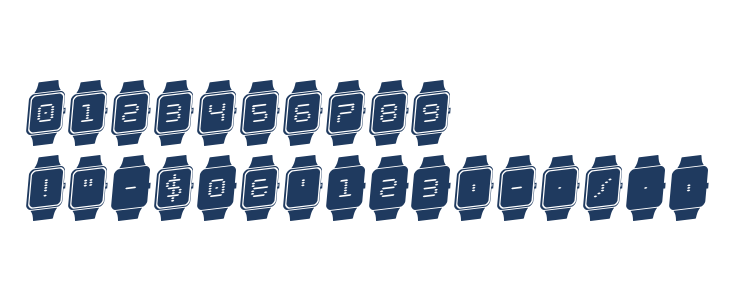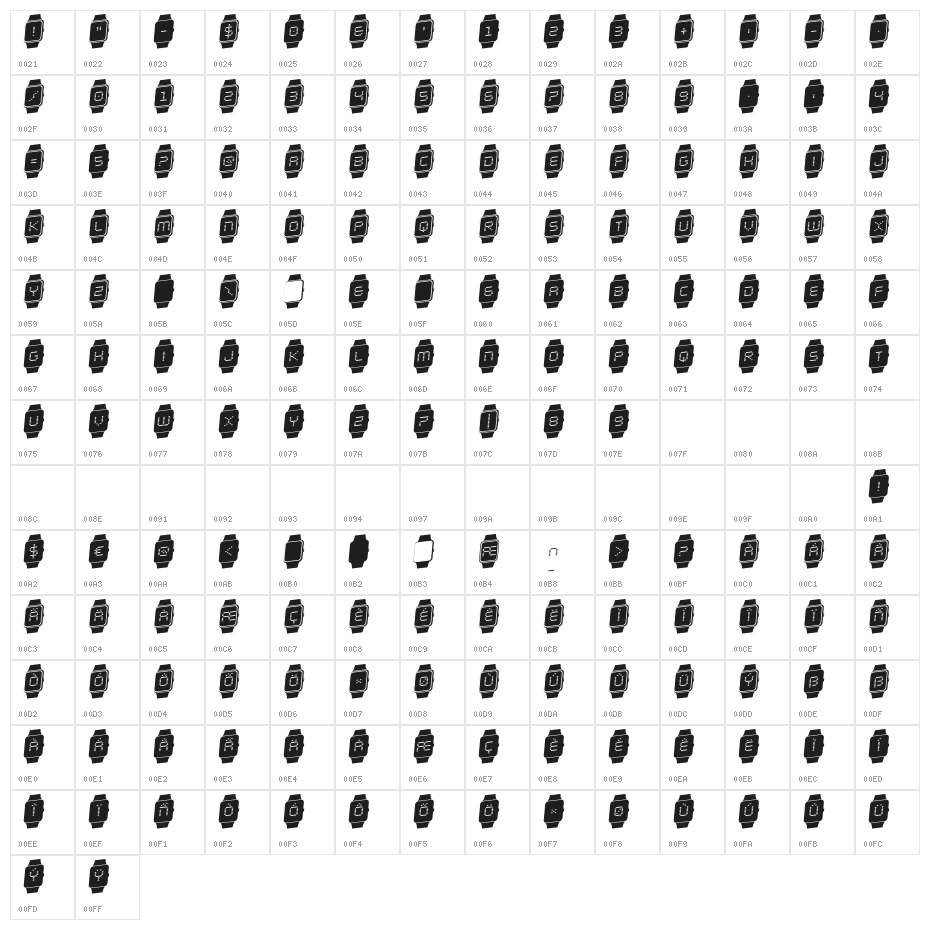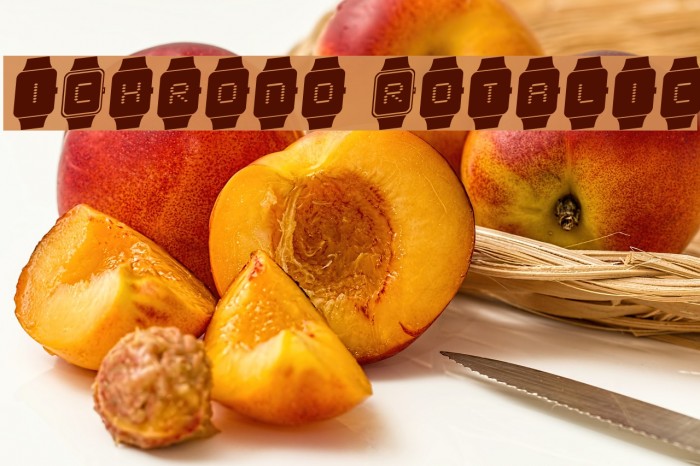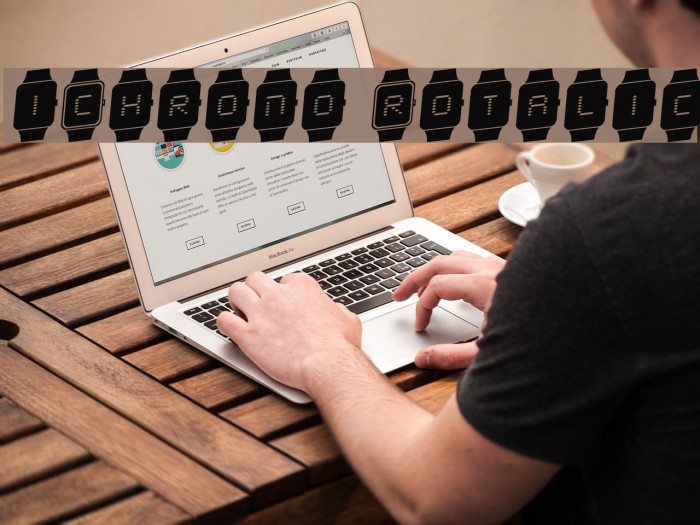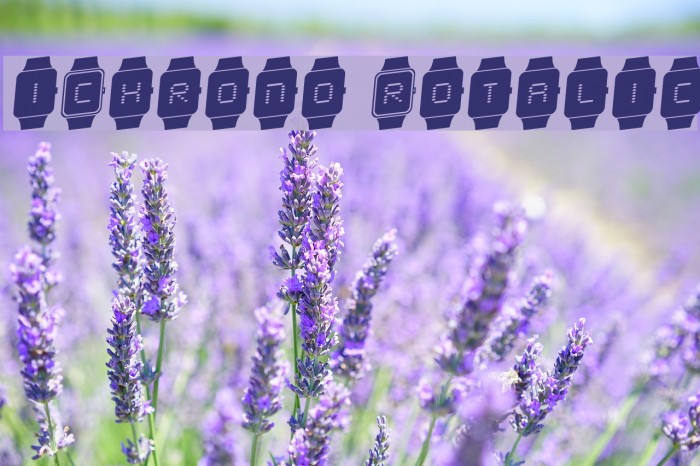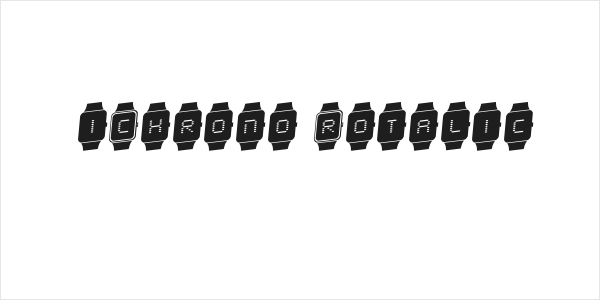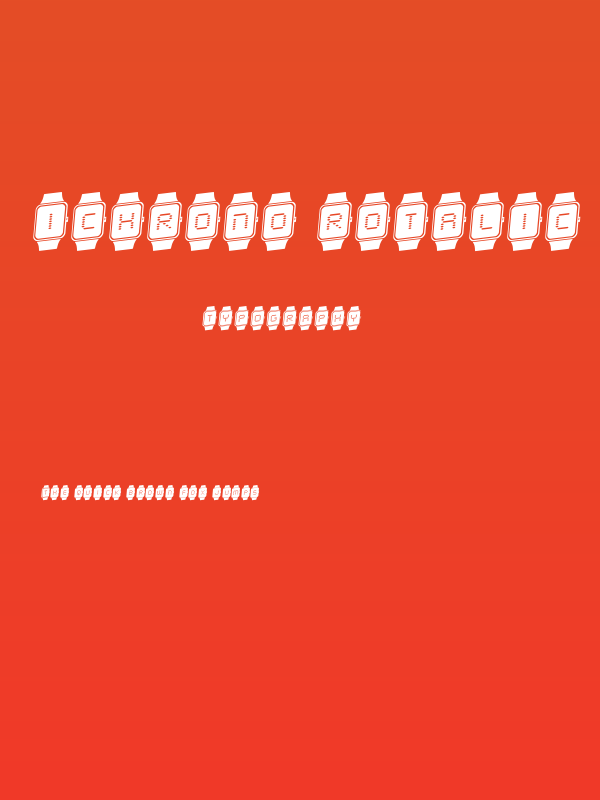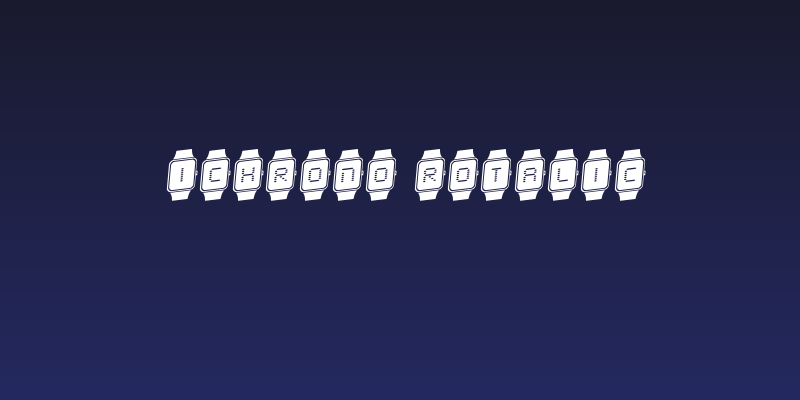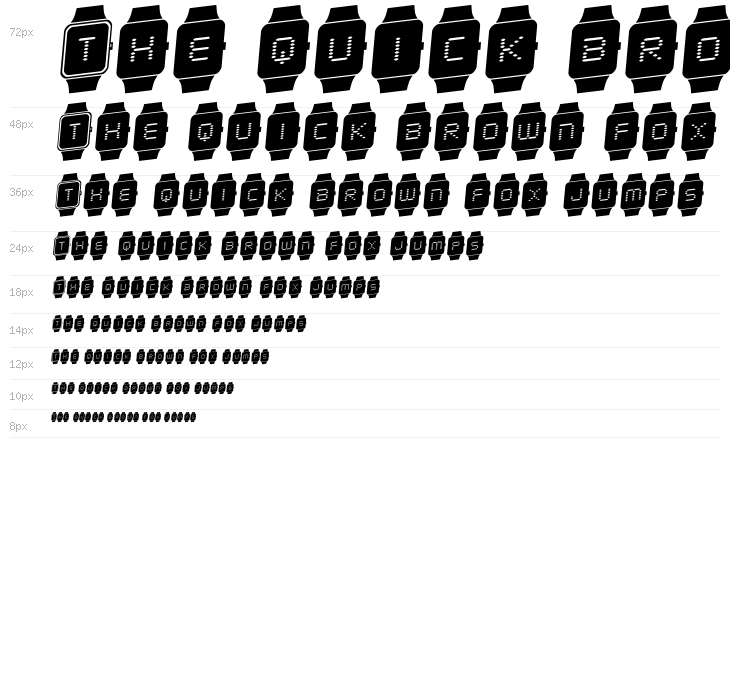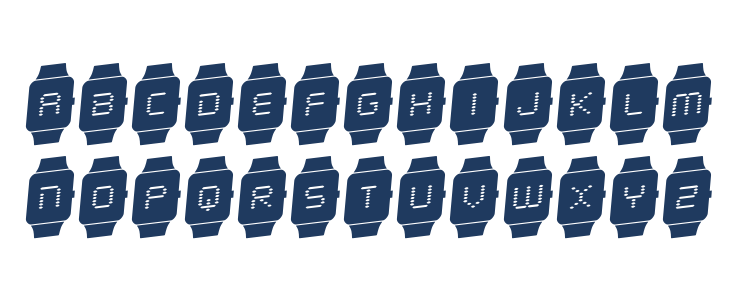
iChrono Rotalic Font
iChrono Rotalic Description
This unique font is designed to mimic the appearance of digital watch displays, with each character encased in a watch-like frame. The letters and numbers are formed using a series of dots, reminiscent of LED or LCD screens. The style is bold and futuristic, with a distinct digital aesthetic that captures the essence of modern technology. The characters are uniformly spaced within their frames, providing a consistent and structured look. This font is perfect for projects that require a tech-savvy, digital feel, such as tech blogs, digital product branding, or futuristic-themed designs.
| Use Case | Logos, Headlines, Digital interfaces |
| Proposed Projects | Ideal for tech blogs, digital product branding, futuristic-themed designs, and digital interfaces. |